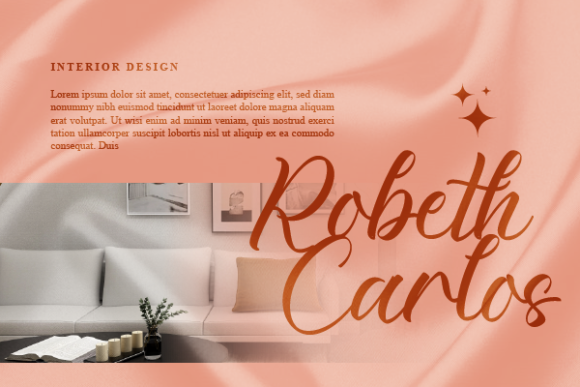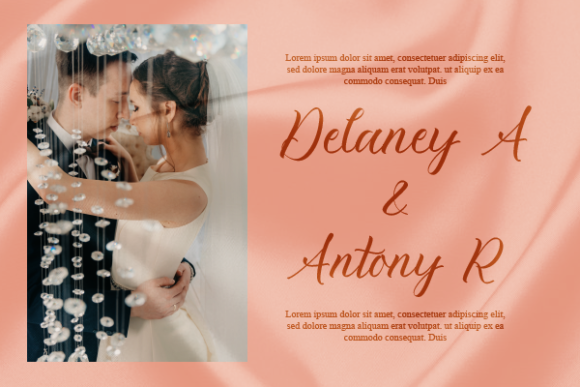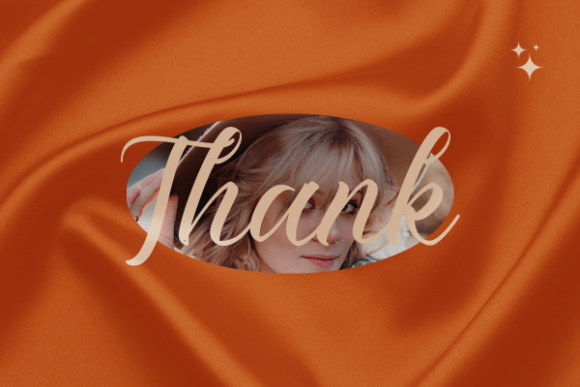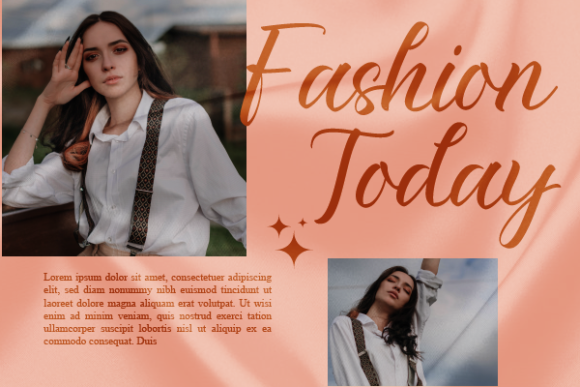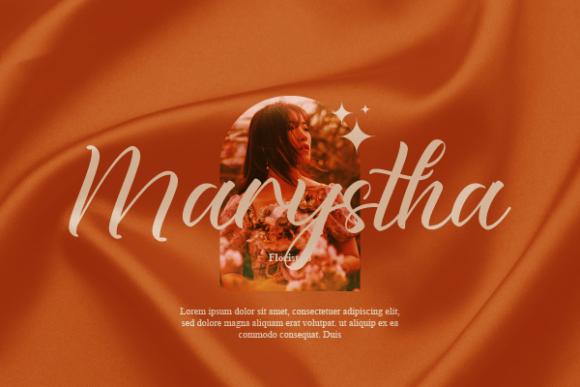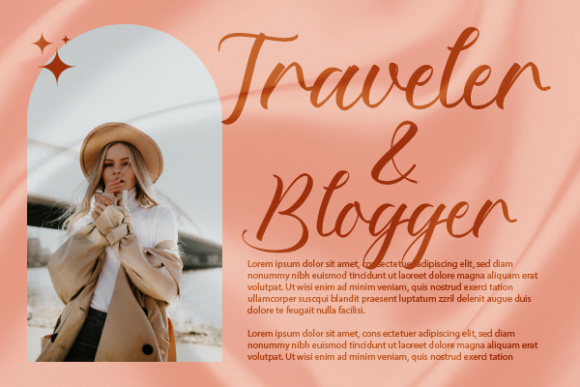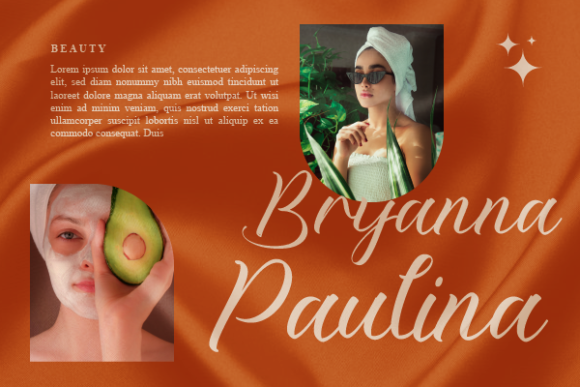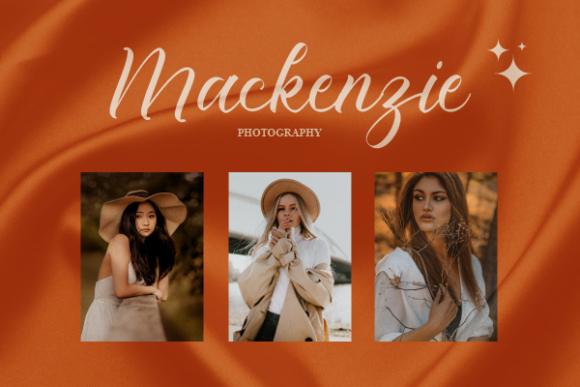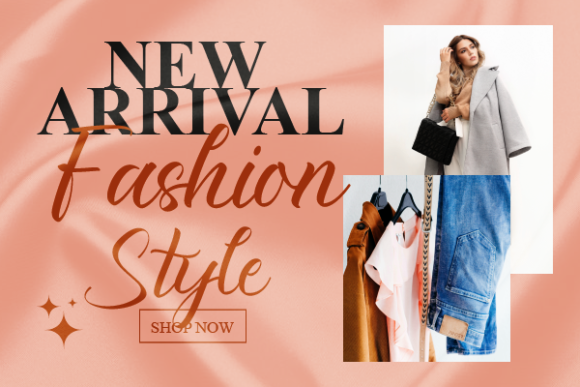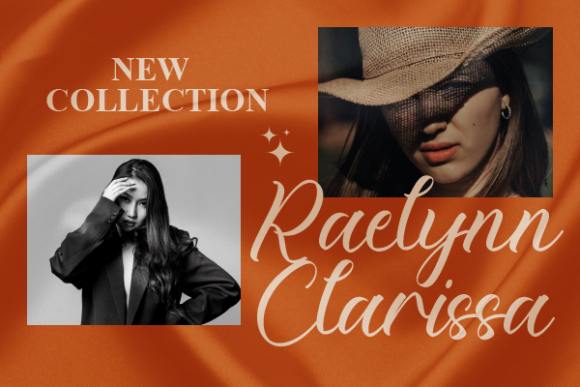
Wrenley Marlowe Font
About Wrenley Marlowe Font
Wrenley Marlowe is a refined and stylish script font that effortlessly exudes a sense of elegance and sophistication. Its delicate letterforms and fashionable design make it an ideal choice for a wide range of branding projects, adding a touch of class and creativity to each application.
When used in logos, Wrenley Marlowe can create a strong and memorable visual identity for your brand. Its intricate and well-crafted characters draw attention and leave a lasting impression, making your logo stand out from the competition. Whether it’s printed on business cards, displayed on packaging, or featured on your website, Wrenley Marlowe adds a distinctive and high-quality element to your brand’s image.
For t-shirt printing, Wrenley Marlowe can bring a touch of sophistication to your apparel designs. Whether it’s a catchy slogan, a memorable quote, or a unique graphic, the font’s fashionable script adds an extra layer of style to your garments. From casual to chic, Wrenley Marlowe complements various fashion aesthetics, making your t-shirts a true statement piece.
In the realm of creative products, Wrenley Marlowe’s versatility truly shines. Its elegant and delicate nature makes it well-suited for a variety of items, from stationery and notebooks to home decor and accessories. The font’s intricate curves and graceful lines enhance the visual appeal of your products, making them more attractive and desirable to your target audience.
Beyond its application in branding and products, Wrenley Marlowe is also suitable for a range of design contexts. Whether you’re crafting social media posts, designing invitations, or creating eye-catching posters, the font’s extraordinary appearance elevates your designs to new heights. Its timeless and fashionable script adds a touch of sophistication and creativity to any project, enhancing its overall visual impact.
In conclusion, Wrenley Marlowe’s delicate and fashionable script makes it a valuable asset for any designer. Its versatility and ability to enhance various design projects, from branding to creative products, ensure that your creations will have a remarkable and extraordinary appeal.